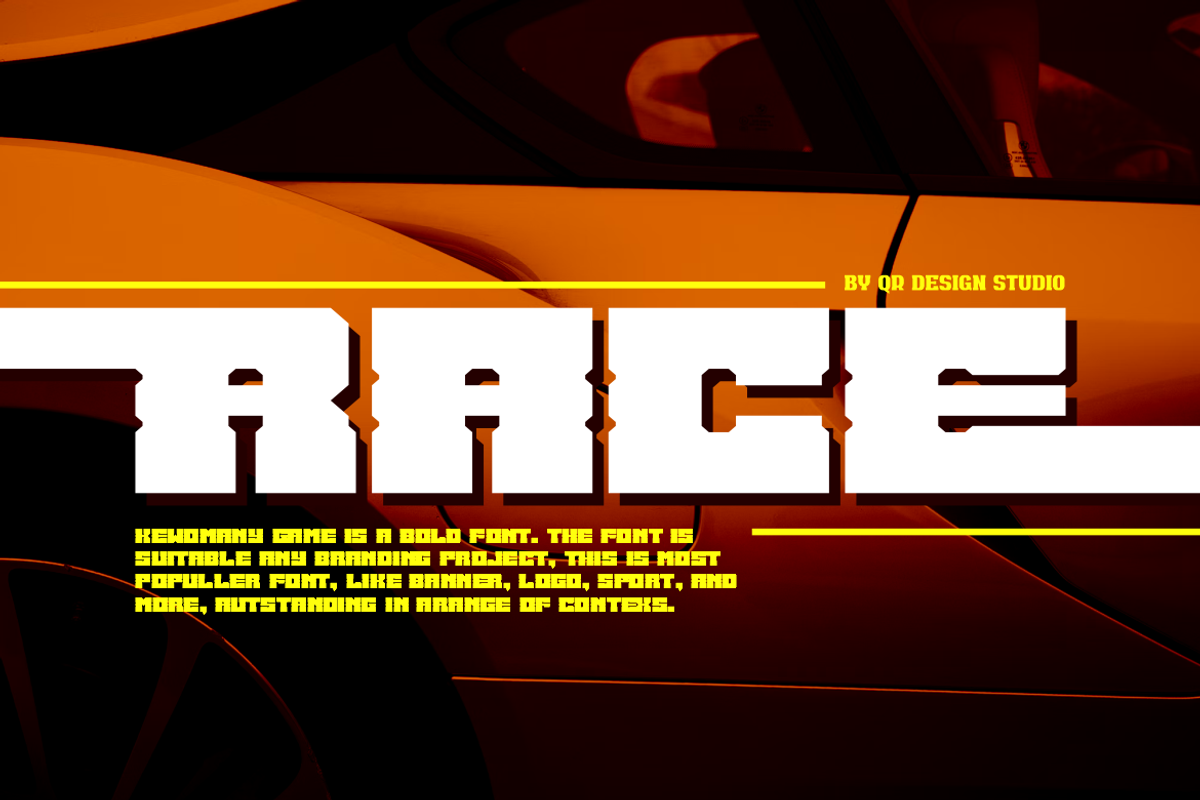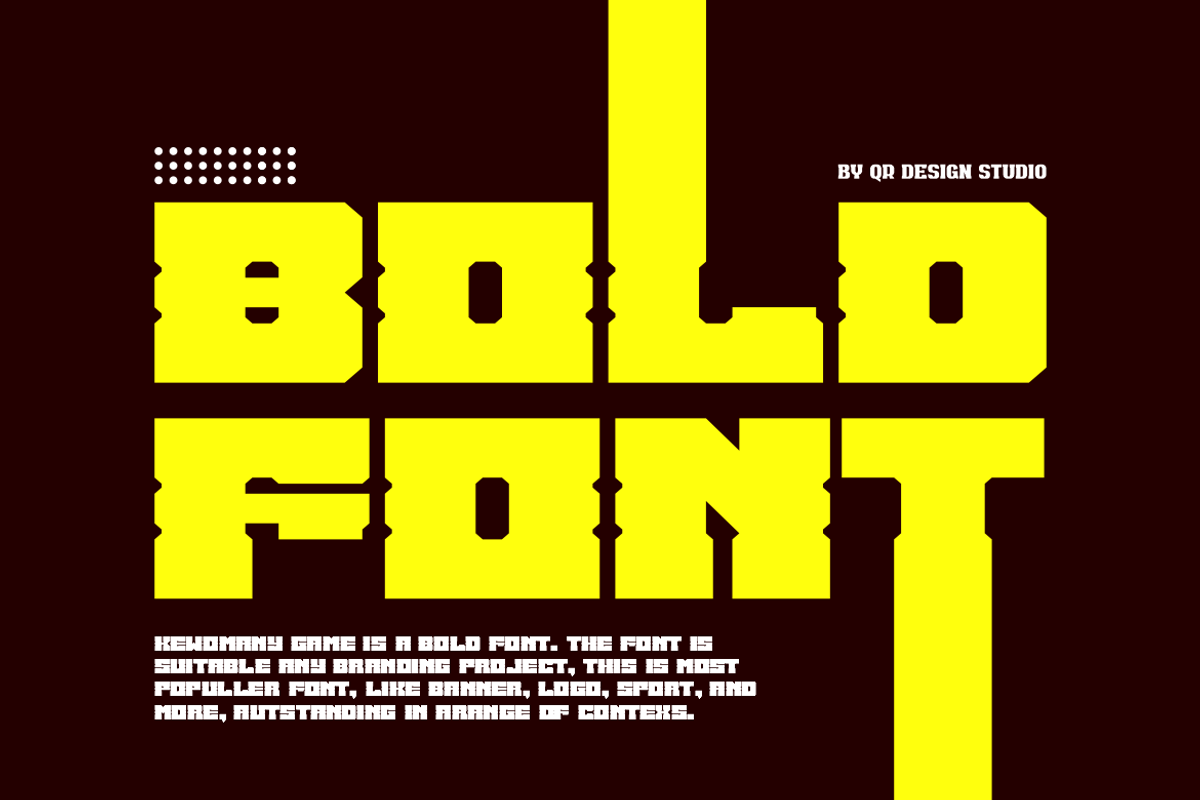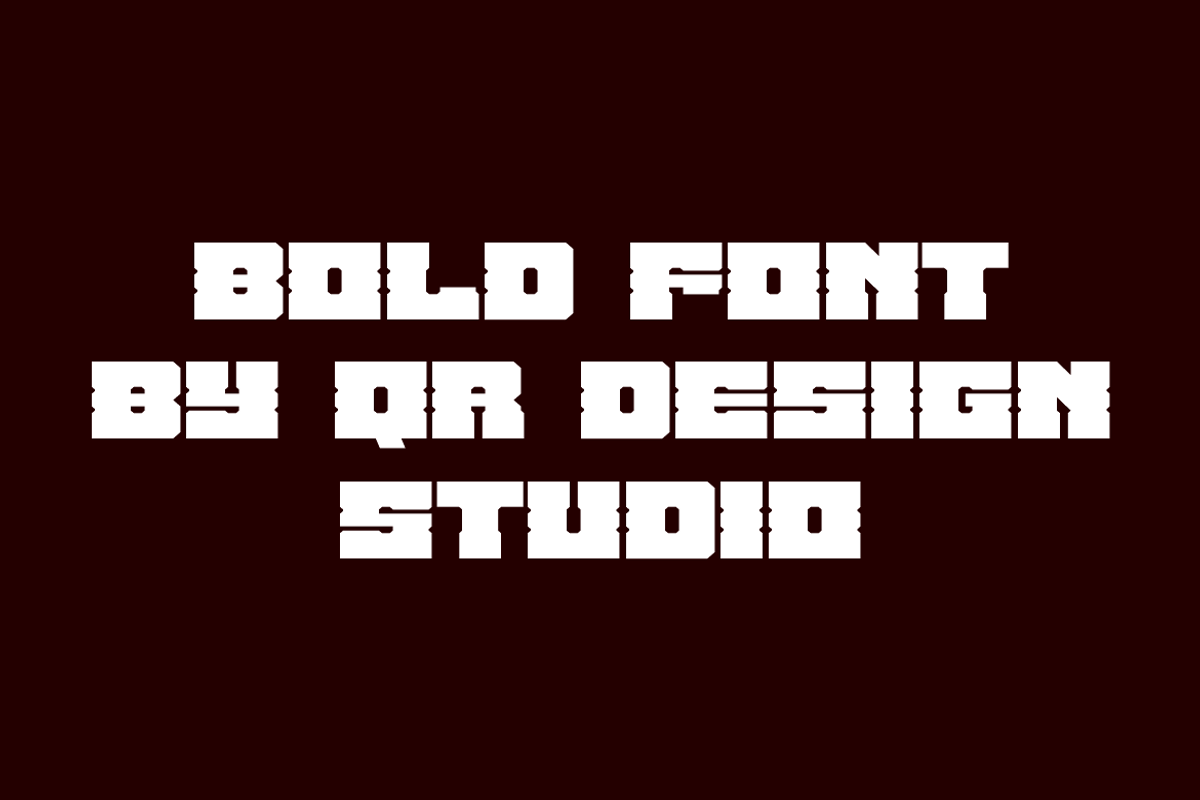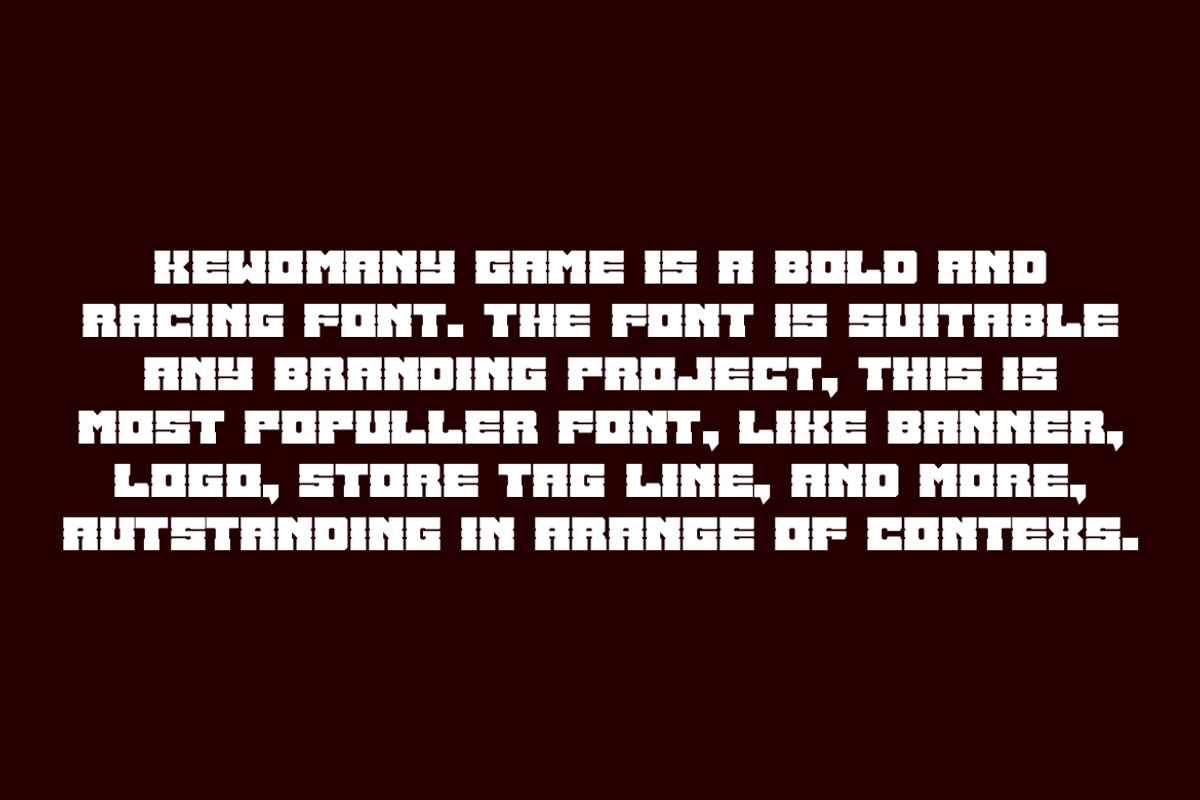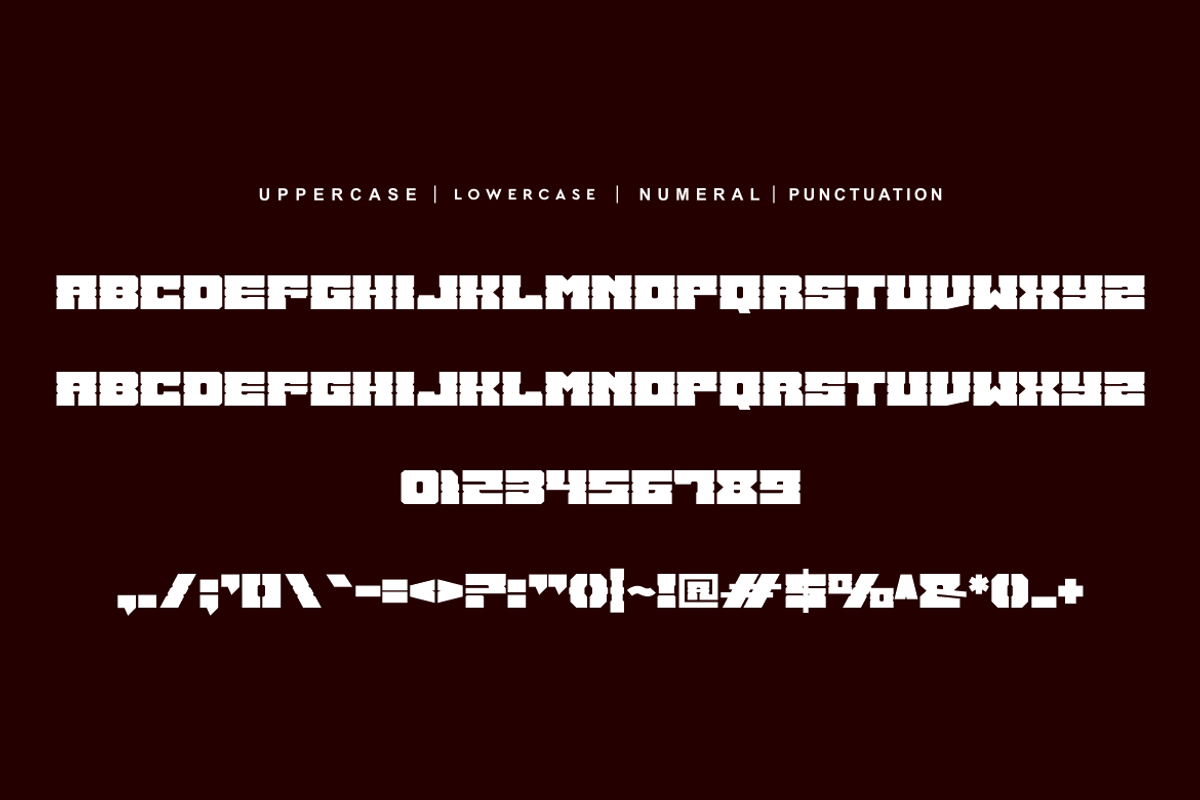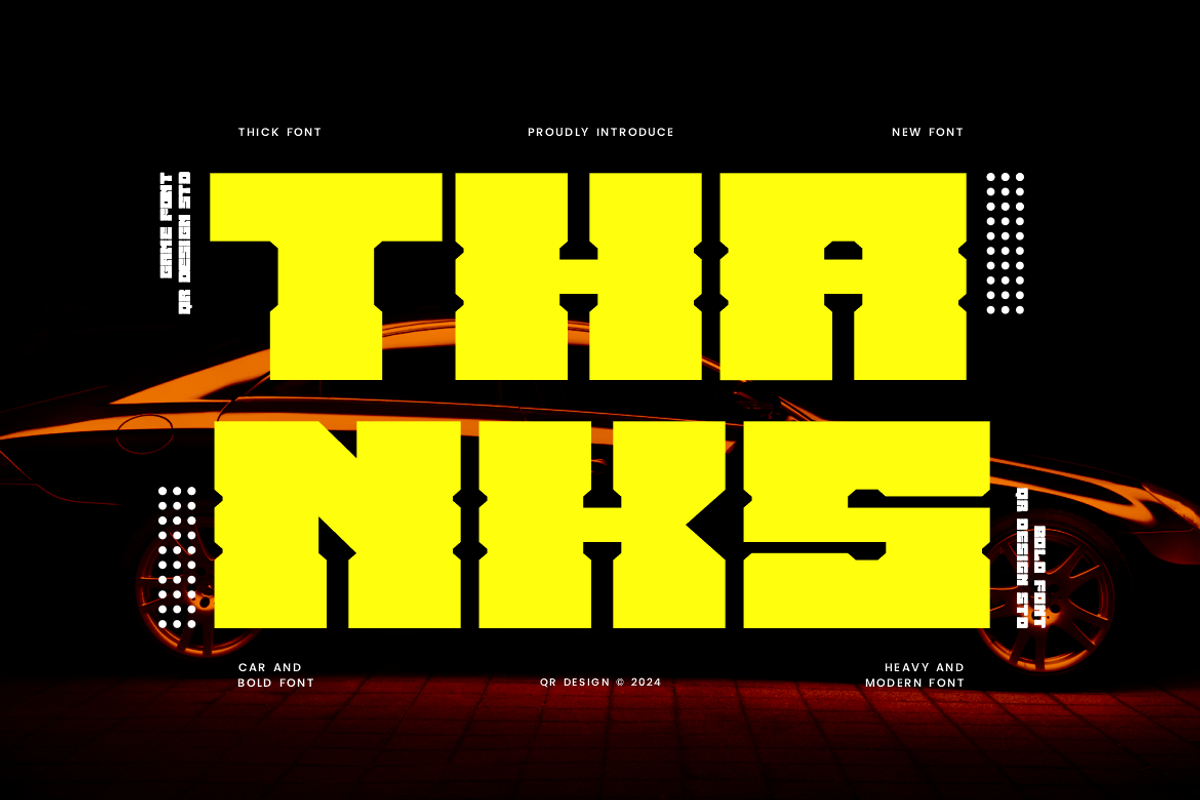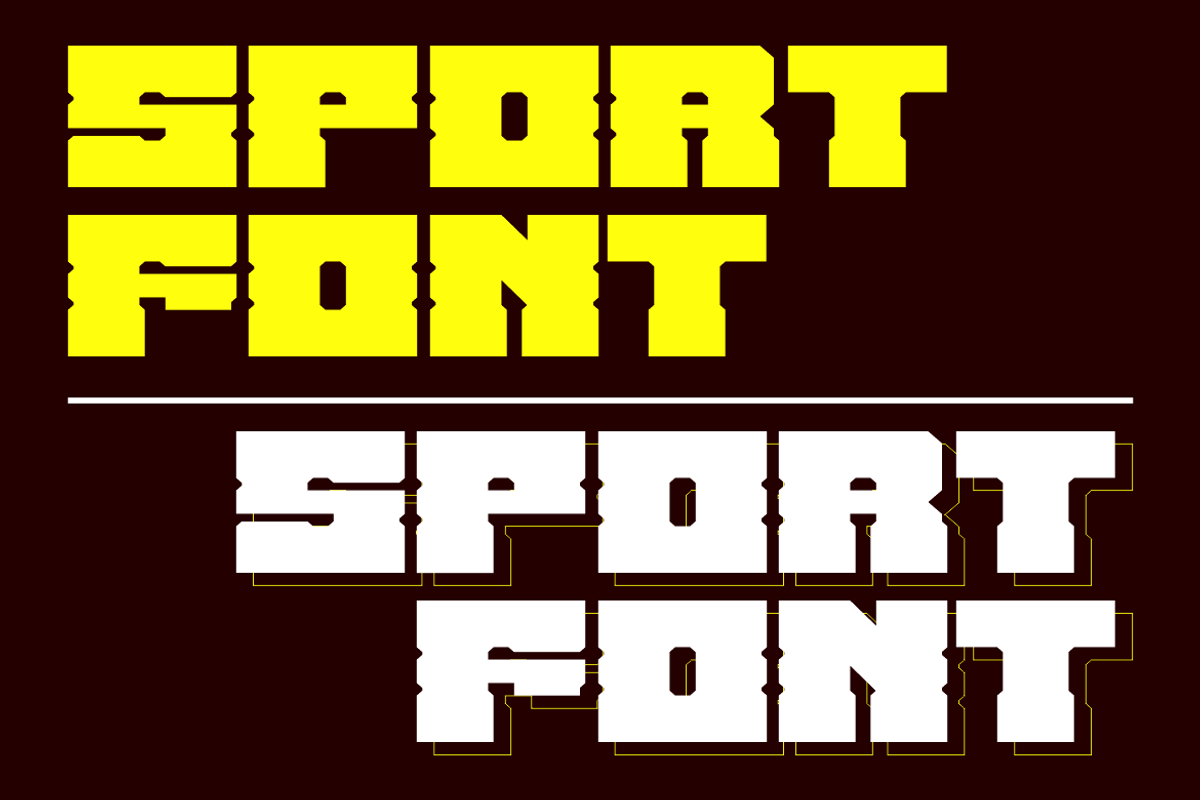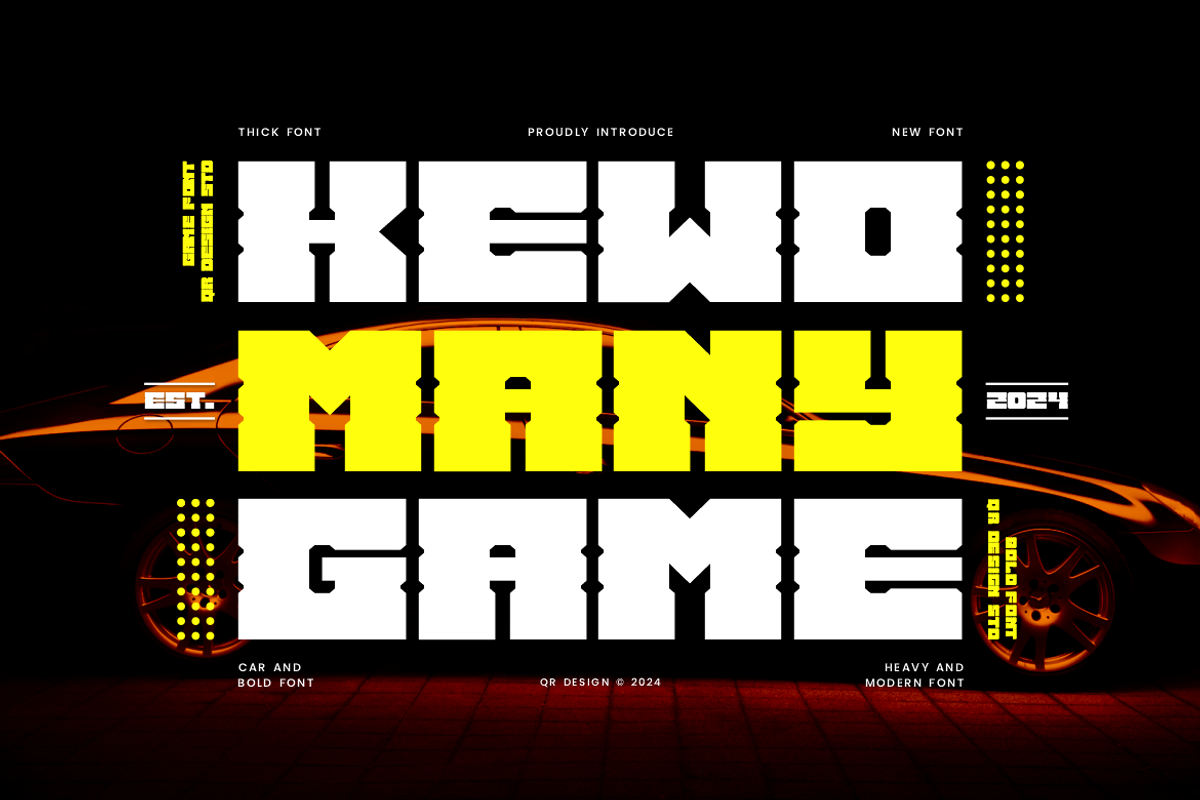
Kewomany Game Automotive Biker Font
Kewomany Game Font is a bold and authentic display font. The font is suitable for any branding project like poster, logo, sport, and many more. Outstanding in a wide range of contexts.